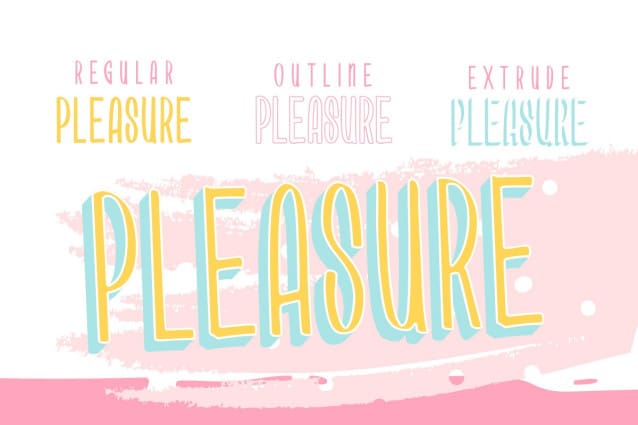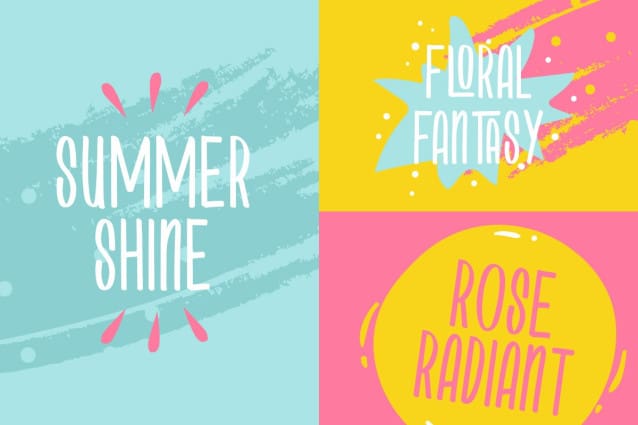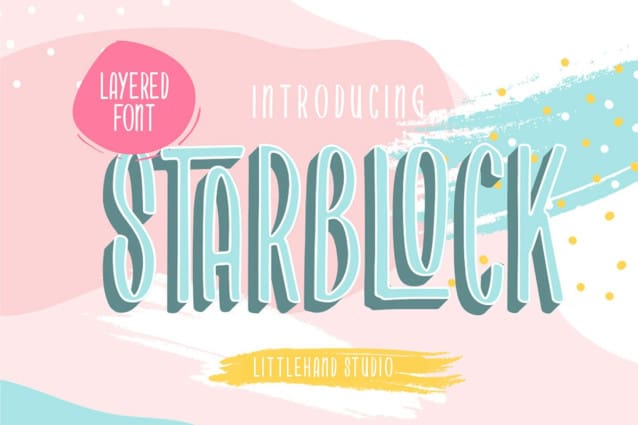
Starblock Playful Font
Starblock Playful Font is playful display. This font perfectly made to be applied especially in logo, and the other various formal forms such as invitations, labels, logos, magazines, books, greeting / wedding cards, packaging, fashion, make up, stationery, novels, labels or any type of advertising purpose.